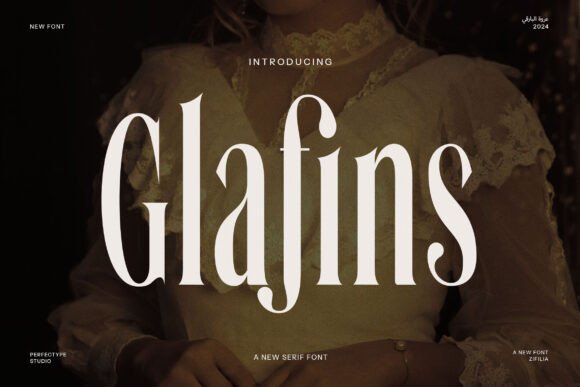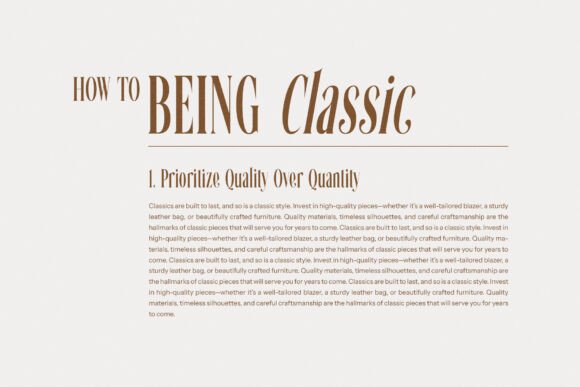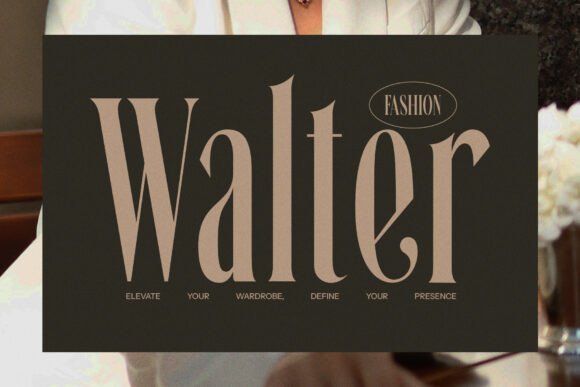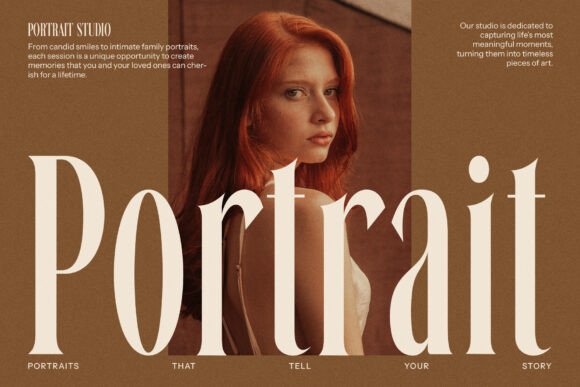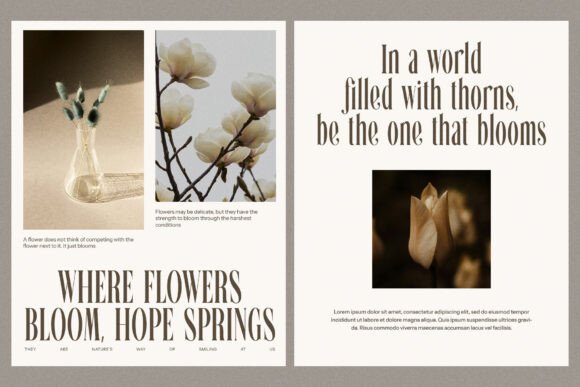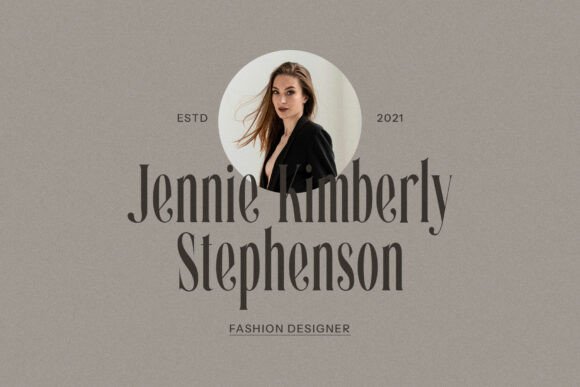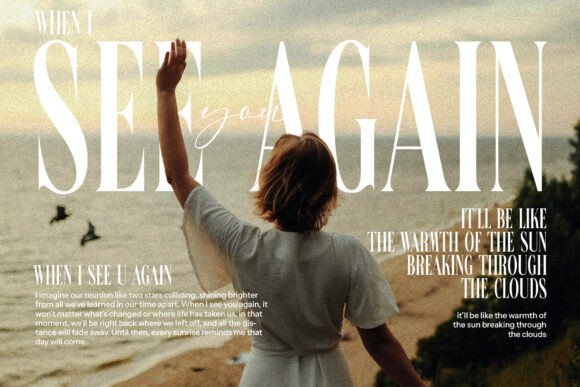
Unlocking Sophistication with Glafins Font
Imagine you’re tasked with designing a luxury brand’s new logo – one that exudes elegance, refinement, and a hint of vintage charm. The pressure is on to create something truly exceptional, something that sets the brand apart from the rest. It’s in these moments that the perfect font can be a game-changer.
Enter Glafins Modern Ligature Serif Font – a meticulously crafted typeface that effortlessly blends vintage flair with modern sophistication. This exquisite font features beautiful, unique ligatures that make it perfect for creating sophisticated designs with a timeless appeal. Whether you’re designing high-end branding, luxurious product packaging, or professional logos, Glafins Font is the ideal choice for adding a touch of exclusivity and creativity to your work.
With its elegant, serif style and distinct ligatures, Glafins Font is a valuable asset for designers looking to elevate their designs and stand out in both digital and print media.
Glafins Font Key Features
- Unique Characteristics: This font features a unique blend of modern and vintage elements, with intricate details and ornate flourishes that set it apart from other fonts.
Review of Glafins Font
I recently had the chance to work with Glafins Font, and I must say it’s a unique addition to any design project. ✨ One of the things that works well is its versatility – it comes in a range of weights and styles, making it perfect for both display and body text. The font’s organic feel also adds a touch of personality to any design.
- Glafins Font’s extensive character set is a major plus, allowing designers to easily create international content.
- The font’s high x-height makes it easy to read, even at small sizes.
- The ligatures and contextual alternates add a level of sophistication to the font.
However, there are some limitations to consider ⚠️. One of the main concerns is the font’s irregular spacing, which can make it difficult to pair with other fonts. Additionally, some users have reported issues with the font’s kerning, particularly at larger sizes.
Overall, I think Glafins Font is a solid choice for designers looking for a unique, high-end font. While it may have some limitations, its versatility and extensive character set make it a great addition to any design project.
Tips for Getting the Most Out of Glafins Font
Use Glafins Font for creative projects that require a unique and elegant touch.
Combine Glafins Font with other fonts to create a visually appealing contrast.
Experiment with different font sizes and colors to enhance the impact of your design.
Glafins Font is ideal for:
Business cards and branding materials
Artistic and creative projects
Alternatives to Glafins Font
Montserrat is a popular sans-serif font designed for digital use. It is highly legible and versatile, making it suitable for a wide range of applications, including logos, headings, and body text. Montserrat is a great alternative to Glafins Font when you need a clean and modern look. It has a similar sans-serif feel but with a more geometric and condensed appearance.
Open Sans is a modern sans-serif font designed for web and print use. It is highly legible and versatile, making it suitable for a wide range of applications, including headings, body text, and captions. Open Sans is a great alternative to Glafins Font when you need a clean and modern look with a more relaxed feel. It has a similar sans-serif feel but with a more rounded and friendly appearance.